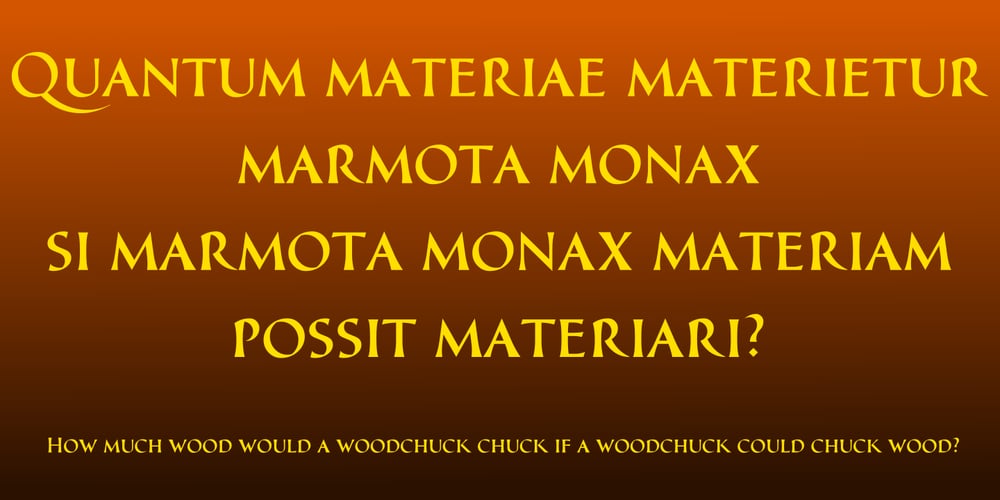
PR Ex Cathedra Font Family was designed by Peter Rempel and published by PR Fonts. PR Ex Cathedra contains 2 styles and family package options. This font is closely based on classical proportions, with flared terminals. Small Capitals are 7/8 the size of the capitals